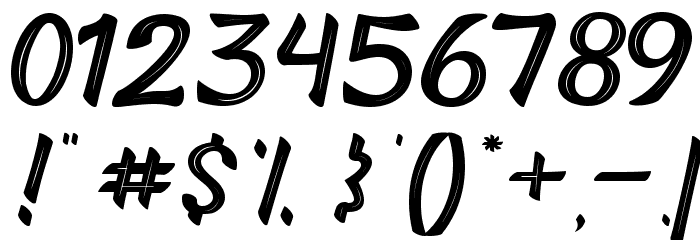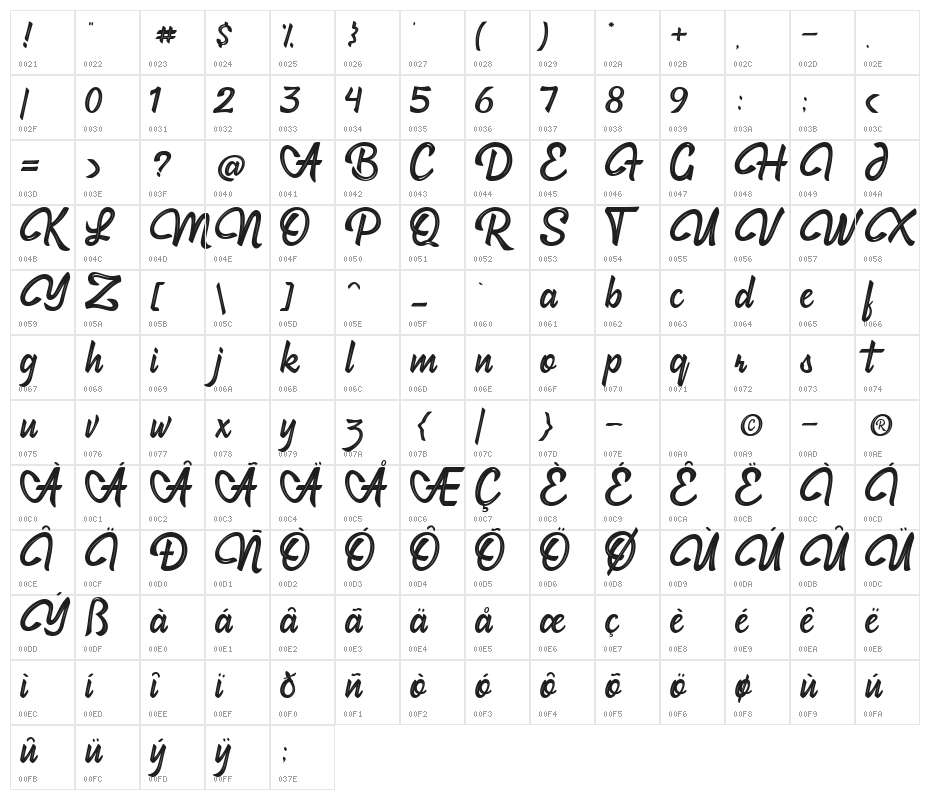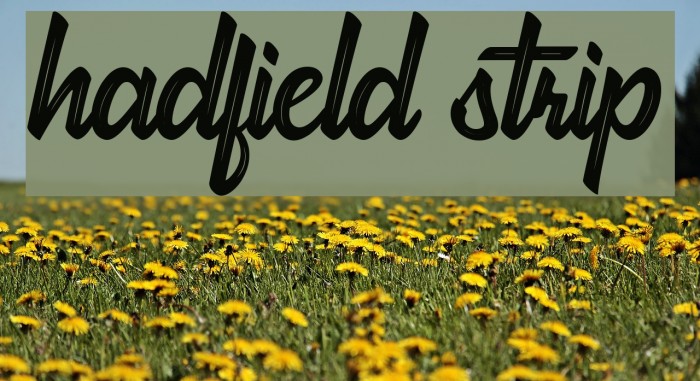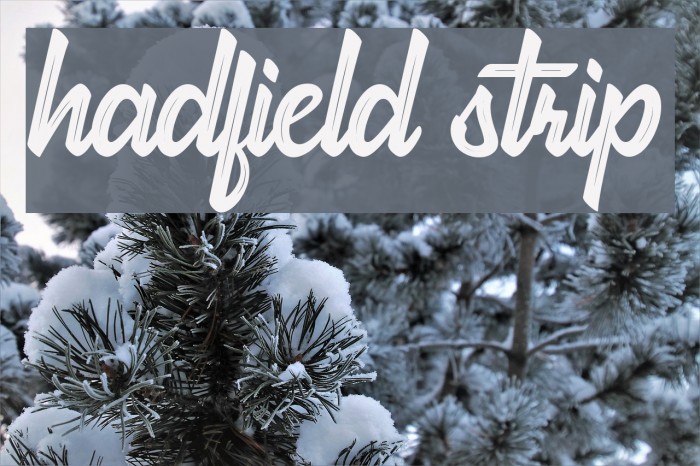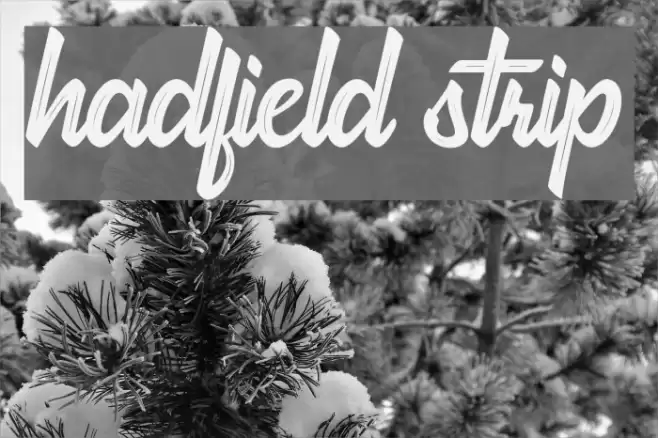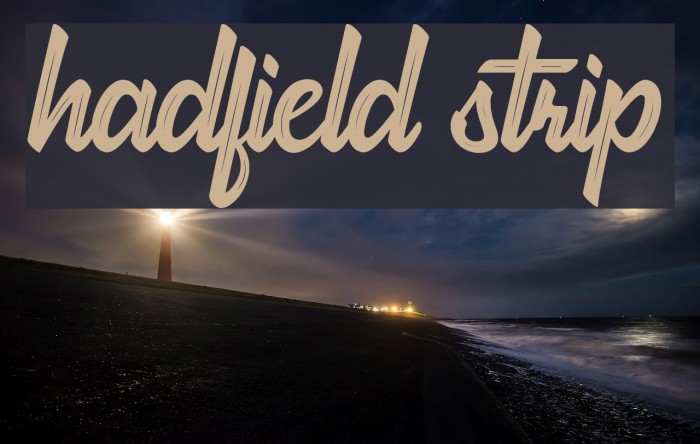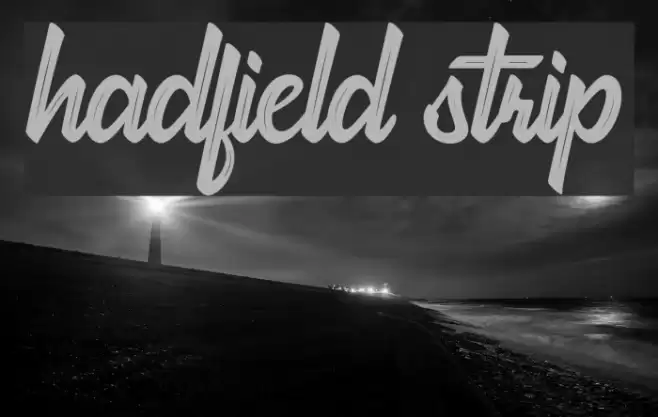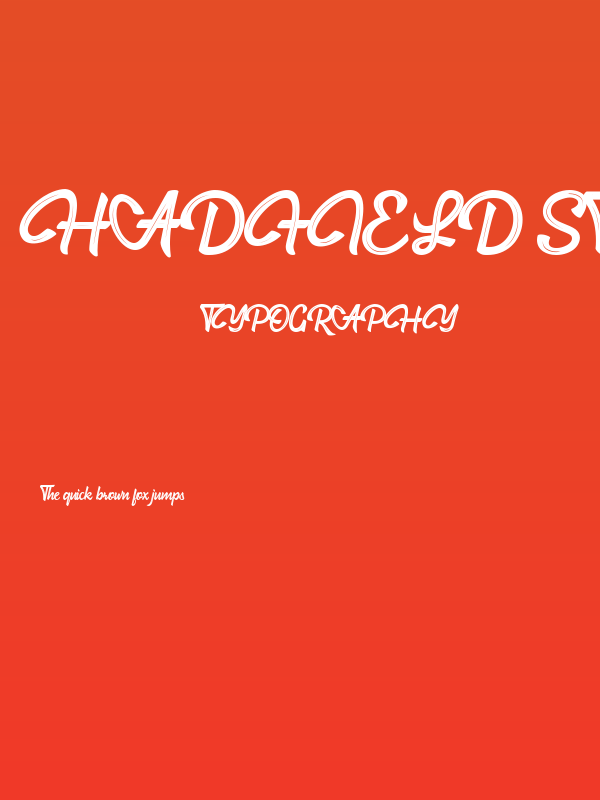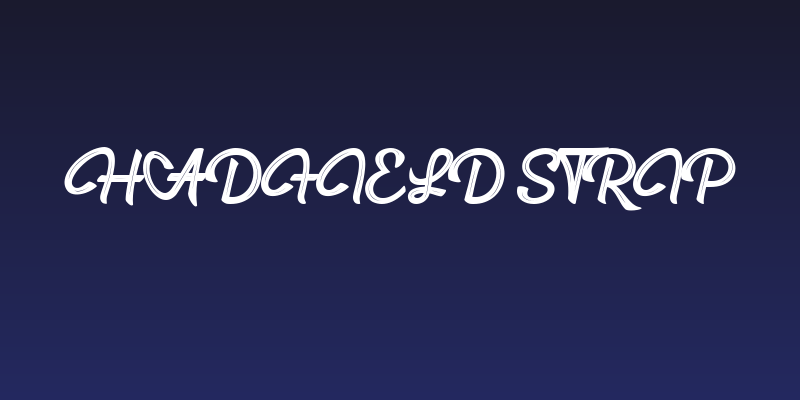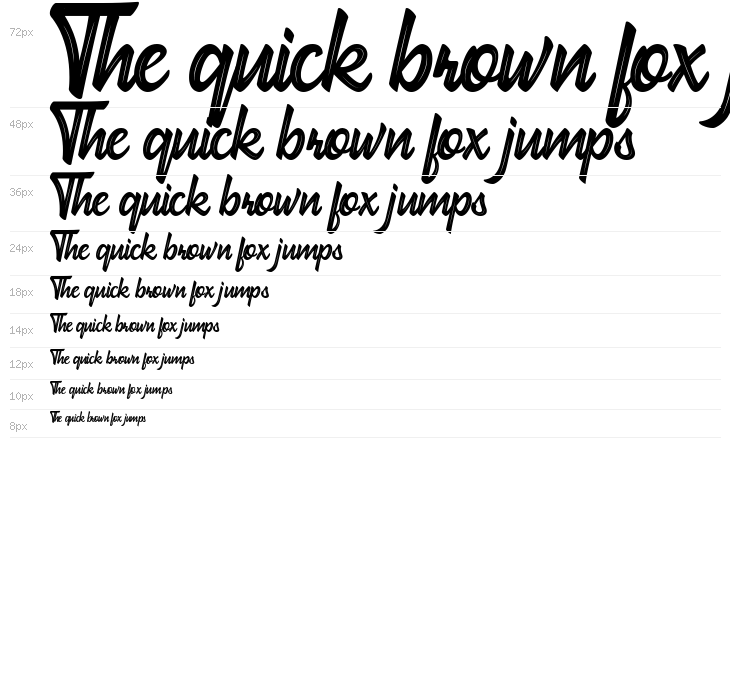
hadfield strip Font
hadfield strip Description
This font features a dynamic and energetic script style, characterized by its bold and flowing letterforms. The uppercase letters exhibit a sense of movement with their sweeping curves and connected strokes, while the lowercase letters maintain a consistent rhythm and fluidity. The numbers and special characters are designed with the same lively flair, ensuring a cohesive look across all elements. The font's overall appearance is both modern and expressive, making it suitable for projects that require a touch of personality and flair.